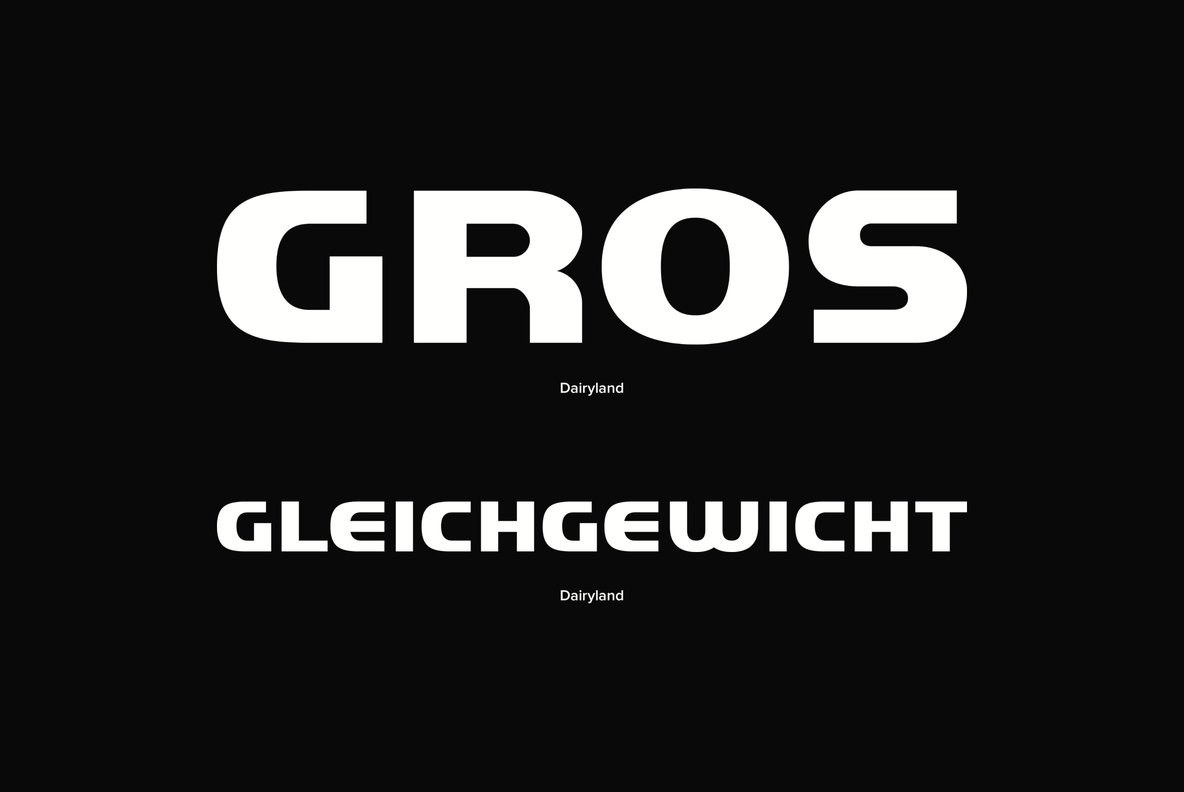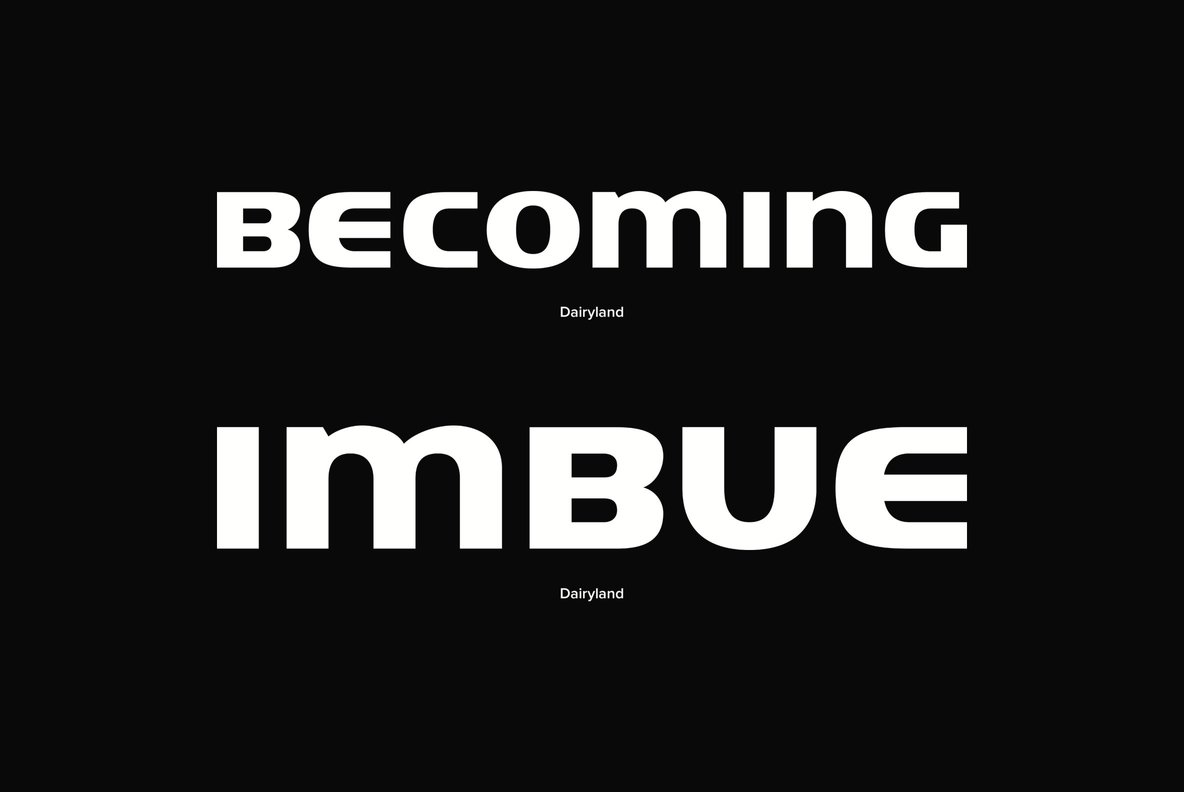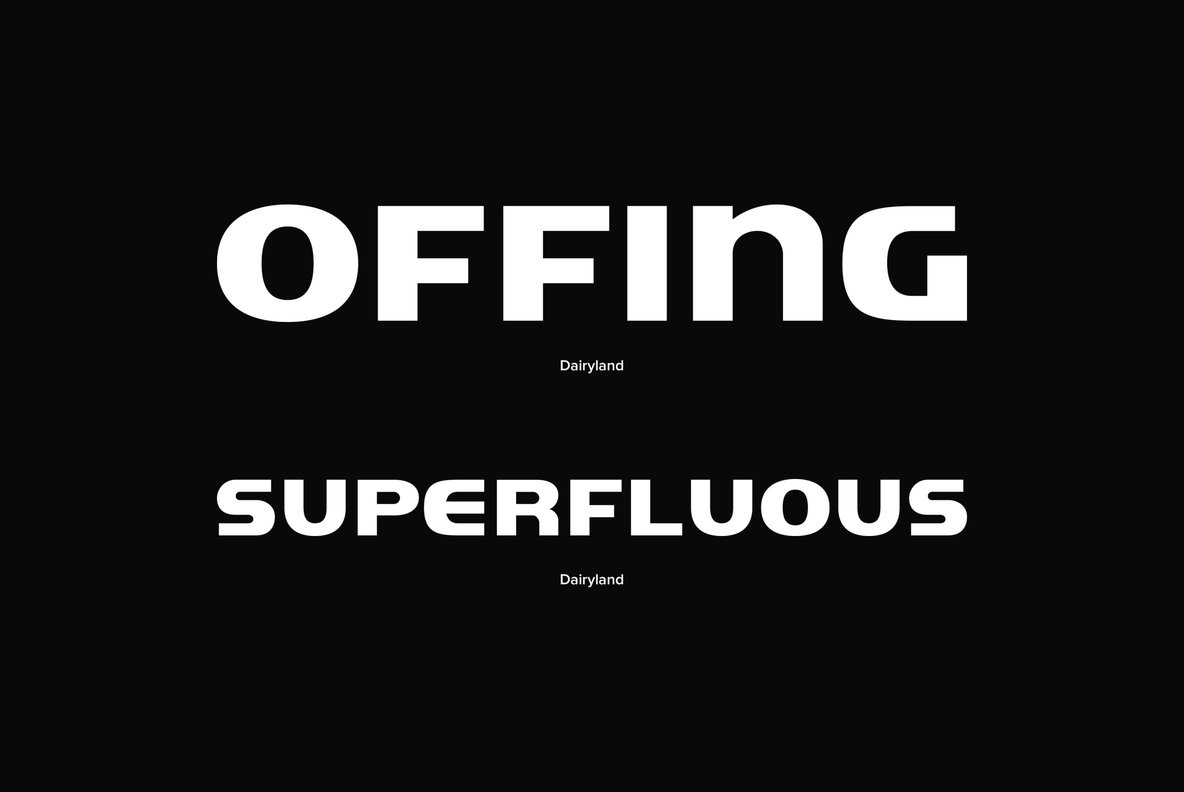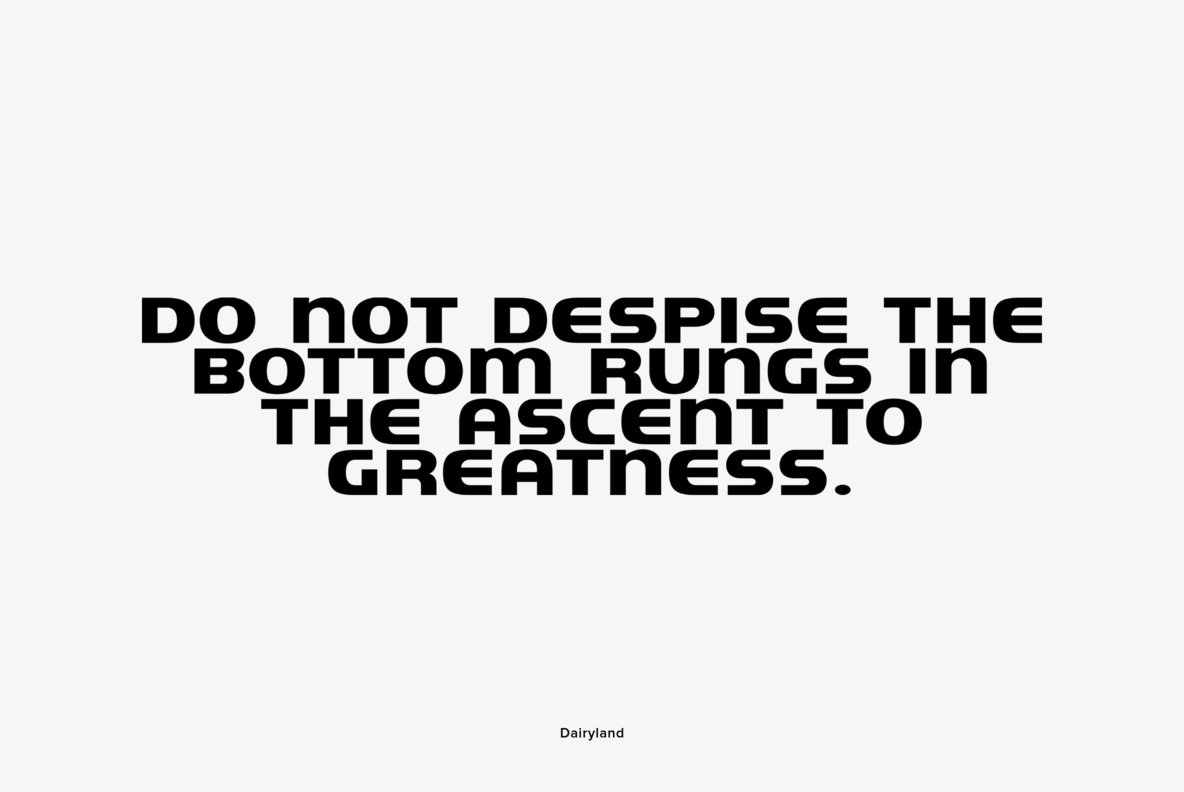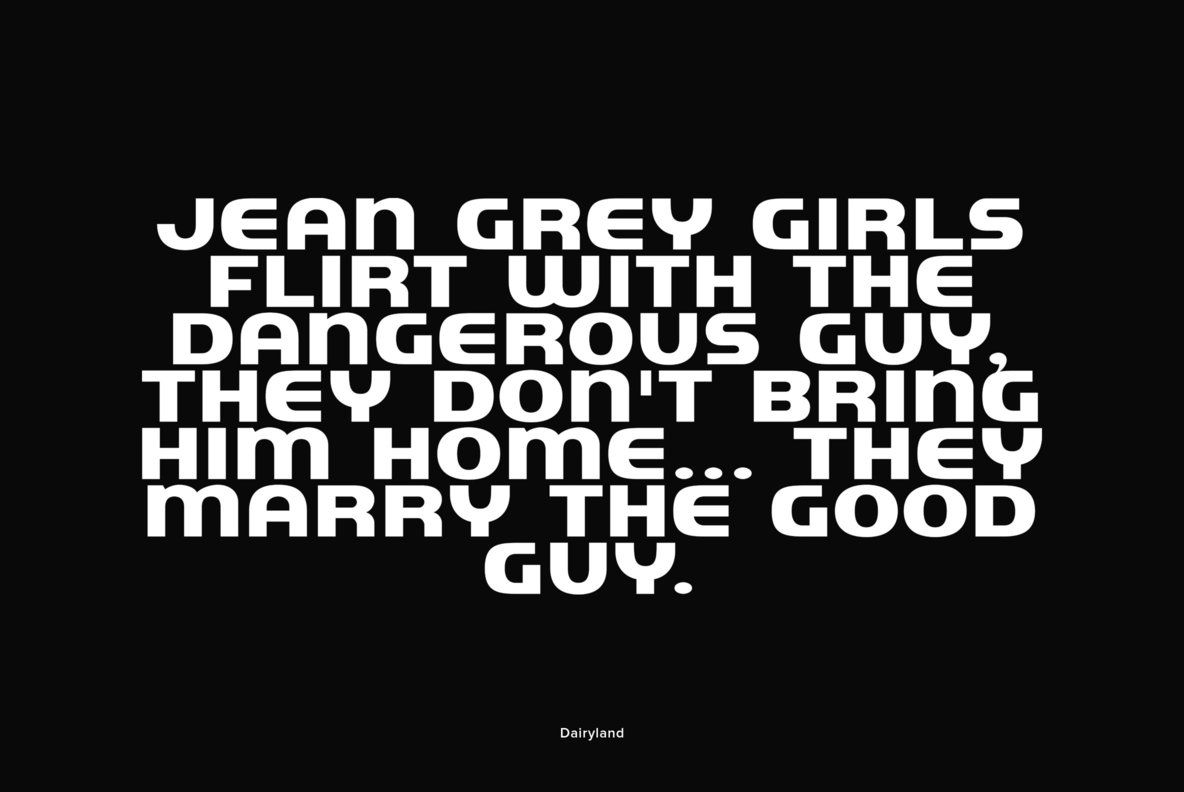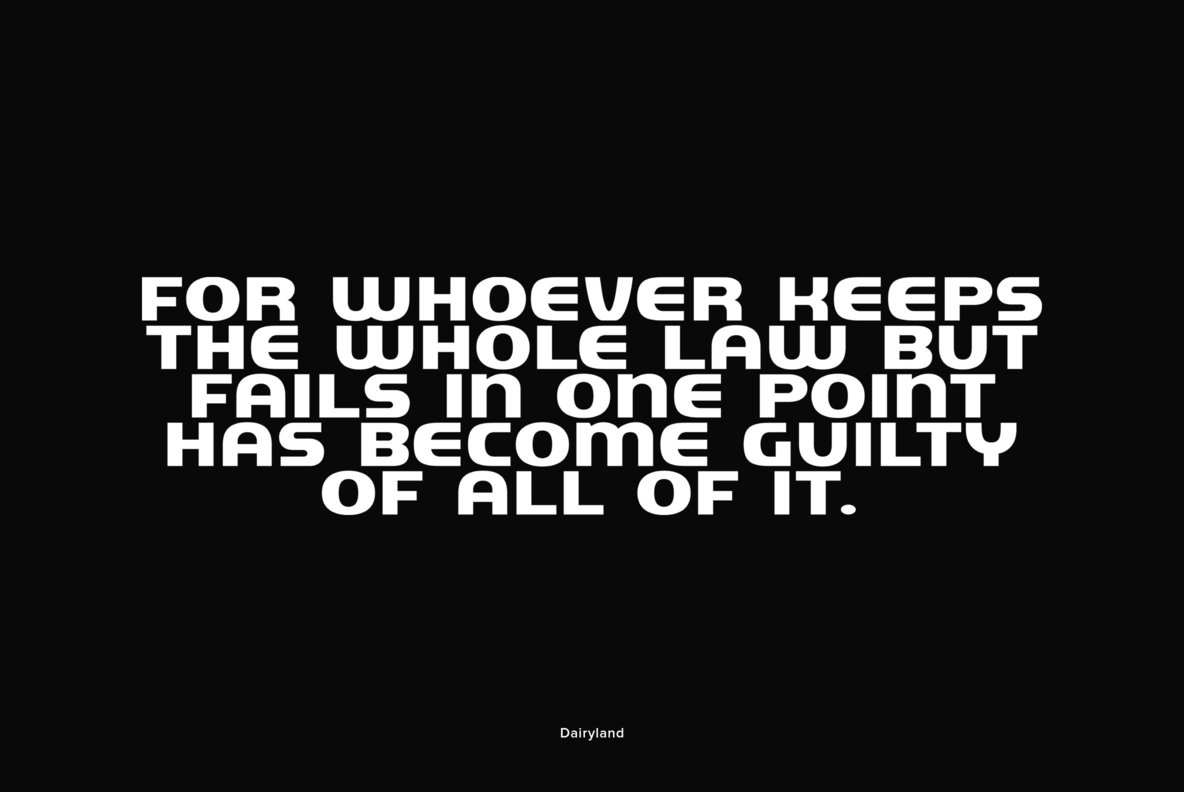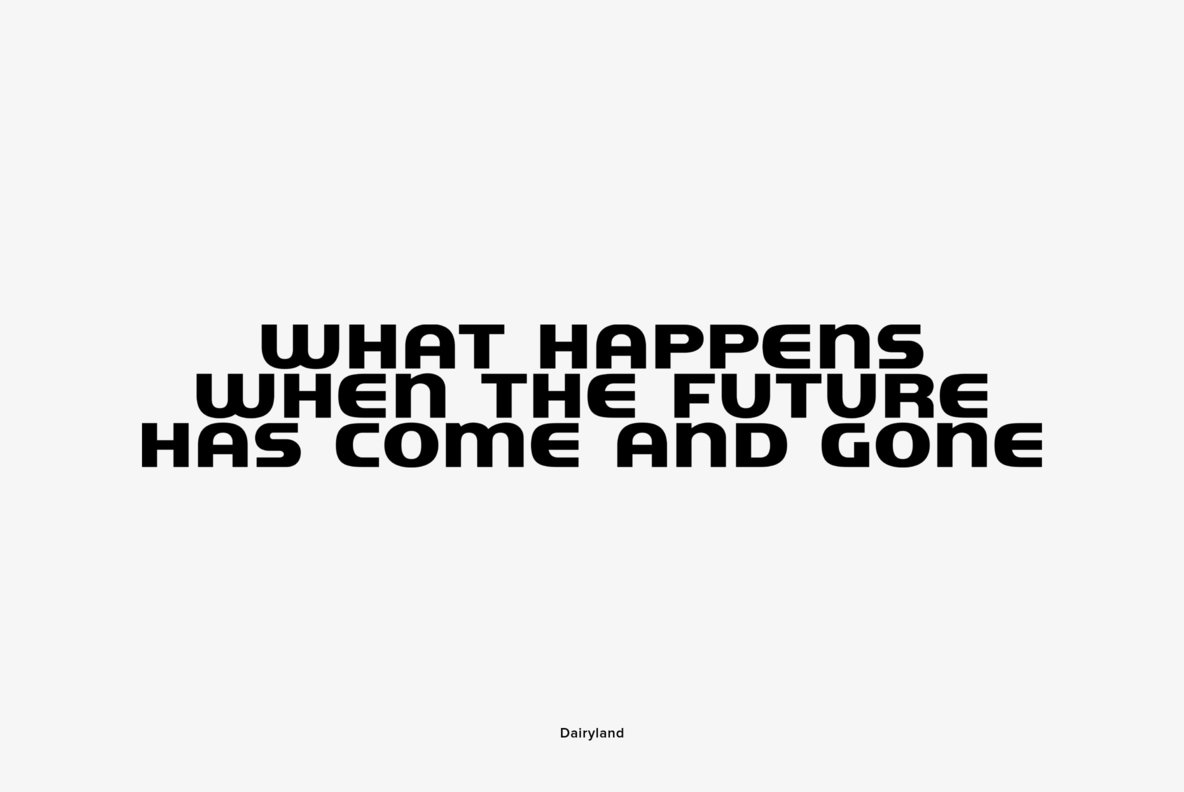
Dairyland
Foundry: Font Diner
Farm fresh and ready for your enjoyment from the heart of Wisconsin, it's Dairyland, a swell 1940s deco inspired sans-serif.